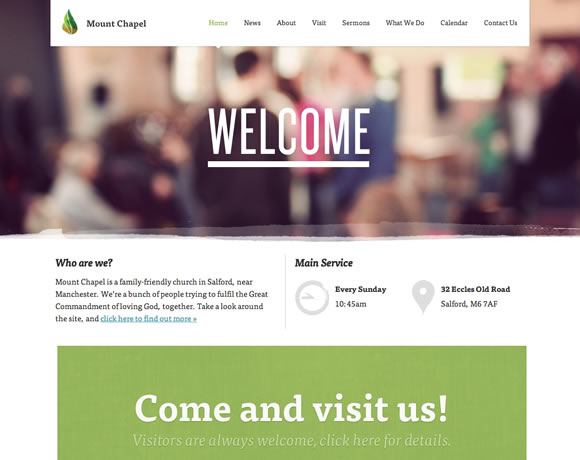
Dancing script is a lovely cursive font that is quite relaxed and could be used in a wide number of places on your website. Another one of the best web fonts to choose from is montserrat.
Simple Website Font Examples Simple Ideas, They’re designed for speed and simplicity, perhaps at the cost of decorum. Open sans is a sans serif font created by steve matteson and first released in 2011.
Show a flash of unstyled text (fout). Note that you need a recent webbrowser that supports webfonts (firefox 3.5+,. Open sans is a sans serif font created by steve matteson and first released in 2011. This font retains a sophisticated feel ideal for brands that take themselves seriously, whether in standard, bold, or italic weight.
If simple, clean, and minimalist is your desired aesthetic, then these web fonts are a perfect choice. Jan 27, 2022 1742 27. Examples this page shows a few webfont examples. Making the web more beautiful, fast, and open through great typography
Show a flash of unstyled text (fout). Tutorials, references, and examples are constantly reviewed to avoid errors, but we cannot. For example, serif fonts are considered more traditional and serious. This font retains a sophisticated feel ideal for brands that take themselves seriously, whether in standard, bold, or italic weight. Enlightenment Documentation Integrating Google Web Fonts.
They don’t put on airs like serif fonts do. If simple, clean, and minimalist is your desired aesthetic, then these web fonts are a perfect choice. Best font websites for free fonts. Sans serifs are fonts for friendly conversation and informal messages, reminiscent of simple handwriting. CSS3 fontface Design Guide Web Designer Wall.
The first available fallback is used immediately, then replaced by the web font once it has loaded. Its simplicity doesn’t compromise with the overall visual attractivity, so the degree of readability is also corresponding. It’s slightly informal but could easily be used for site headers and title graphics for. When to use this font: 19 Inspiring Examples of Text Over Images in Web Design Ledger.
With its sharp edges and sturdy feel, this is a google font that can add elegance to any design. Font generator ( ͡° ͜ʖ ͡°) designers; Examples this page shows a few webfont examples. It has the perfect neutrality to pair with a variety of other fonts. Bold Serif Fonts in Web Design 20 Stunning Examples Creative Market Blog.
Sans serif fonts work best for websites who want to show their visitors, “we’re just like you”. Note that you need a recent webbrowser that supports webfonts (firefox 3.5+,. Another one of the best web fonts to choose from is montserrat. Each font you choose will have a role to play on your website and you are in charge of the casting process. New fonts in Wix Website Editor.
This classical font created in 1931 for the times newspaper is still popular and has various versions. The font’s emphasis on readability, friendly appearance, and excellent support for many different languages make it easily stand out as one of the ten best fonts for websites. Browse our html5 responsive web fonts templates below. They create a modern and minimalistic look. CSS Font Codes. Css font family, Css, Web design.
Tutorials, references, and examples are constantly reviewed to avoid errors, but we cannot. Jan 27, 2022 1742 27. The browser can choose to: Another sample of good website fonts, this style is excellent for headings. Give WordPress a professional look Cool Fonts & How to Get Them.
An example of times new roman traditional and updated versions georgia. But, if combined with a modern sans serif font, the overall result can be really fresh and elegant. The font’s emphasis on readability, friendly appearance, and excellent support for many different languages make it easily stand out as one of the ten best fonts for websites. Bold montserrat type in white against a dark, illustrated background makes an impact on the visitors of nitrografix website. Font Pairing Choosing Typefaces for Websites.
Examples might be simplified to improve reading and learning. 31+ best web safe fonts. This font retains a sophisticated feel ideal for brands that take themselves seriously, whether in standard, bold, or italic weight. This process is used by ie, edge 18 and below, and older editions of firefox and opera Font Families in Premium Fonts.
Tutorials, references, and examples are constantly reviewed to avoid errors, but we cannot. Open sans is a sans serif font created by steve matteson and first released in 2011. It is distinguished with strict and. But, if combined with a modern sans serif font, the overall result can be really fresh and elegant. 10 Tips On Typography in Web Design by Nick Babich UX.
Examples might be simplified to improve reading and learning. This process is used by ie, edge 18 and below, and older editions of firefox and opera It is distinguished with strict and. Adding a font to your website adding a font to your website is pretty easy.